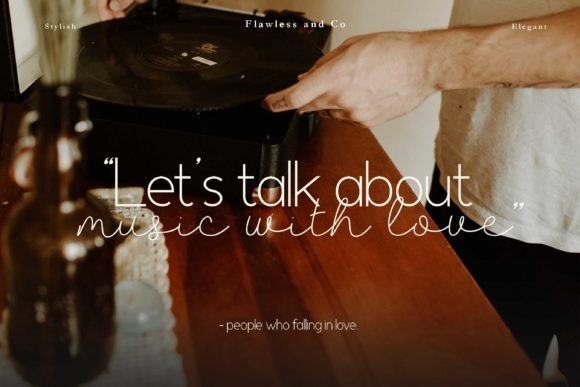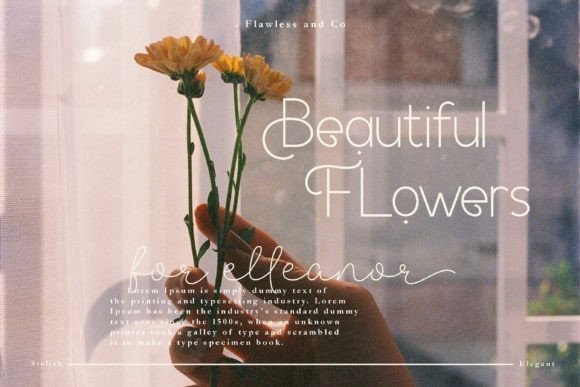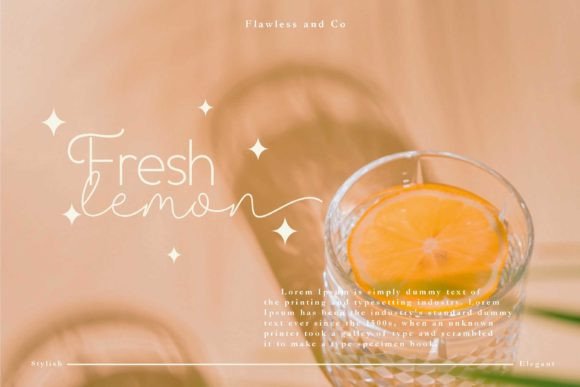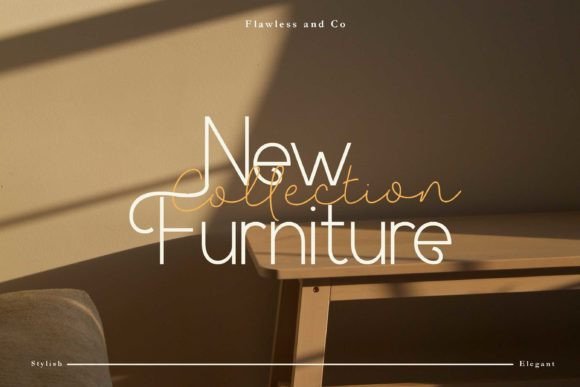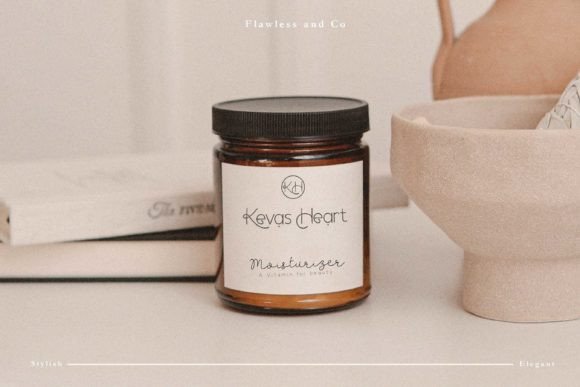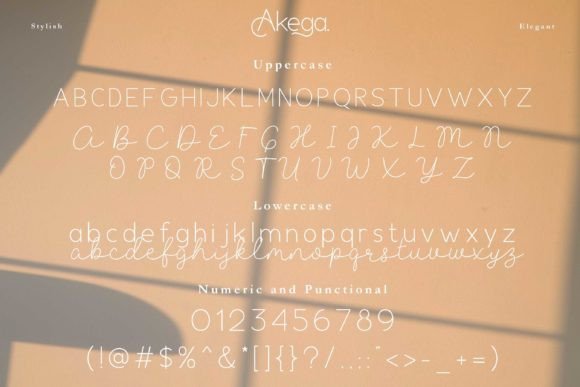
Introducing Akega Duo Font: Elevate Your Designs with Elegance and Versatility
In the world of typography, a font can make or break a design project. For designers and crafters seeking a touch of elegance and versatility, the Akega Duo Font is an exceptional choice. This beautifully crafted sans-serif font duo is perfect for a wide range of applications, from eye-catching headlines and logos to branding, posters, and more. With its sophisticated design and extensive features, Akega is poised to become a staple in your font collection.
Aesthetic Appeal and Versatility
Akega’s design is characterized by its clean lines, balanced proportions, and a modern sans-serif style that exudes professionalism and sophistication. The font duo comes with a range of features that enhance its aesthetic appeal and versatility. One of the standout features of Akega is its inclusion of ligatures and alternates. These typographic elements allow designers to add a personal touch to their work, creating unique and visually appealing text that captures the viewer’s attention.
Key Features of Akega Duo Font
- Beautifully Crafted Sans-Serif Design: Akega’s modern sans-serif style ensures that your designs look contemporary and sleek, making it perfect for projects that demand a professional look.
- Ligatures and Alternates: The inclusion of ligatures and alternates gives you the flexibility to customize your text, adding an artistic flair that sets your work apart.
- Elegant and Versatile: Whether you’re working on a logo, branding materials, posters, or digital content, Akega’s elegant design ensures that your text looks great across various mediums.
- Perfect for Eye-Catching Headlines: The font’s design is optimized for readability, making it an excellent choice for headlines that need to stand out and grab attention.
Applications of Akega Duo Font
The versatility of Akega makes it suitable for a wide range of design projects. Here are some of the ways you can use Akega Duo Font:
- Logos and Branding: Create memorable logos and branding materials with Akega’s distinctive and elegant style.
- Posters and Flyers: Design eye-catching posters and flyers that stand out, thanks to Akega’s readability and aesthetic appeal.
- Digital Content: Enhance your website, blog, or social media posts with Akega’s modern and professional look.
- Print Materials: From brochures and business cards to packaging and merchandise, Akega is perfect for any print project that requires a touch of elegance.
Why Choose Akega Duo Font?
With so many fonts available, why should Akega be your go-to choice? The answer lies in its perfect blend of elegance, versatility, and functionality. Akega is not just a font; it’s a design solution that can elevate your projects to new heights. Its extensive features, including ligatures and alternates, give you the creative freedom to experiment and innovate.
Akega Duo Font is a game-changer for designers and crafters looking for a font that combines elegance, versatility, and functionality. Its beautifully crafted sans-serif design, coupled with features like ligatures and alternates, makes it an ideal choice for a wide range of design projects. Whether you’re creating headlines, logos, branding materials, or digital content, Akega is sure to impress. Add Akega to your font collection today and discover a world of creative possibilities.